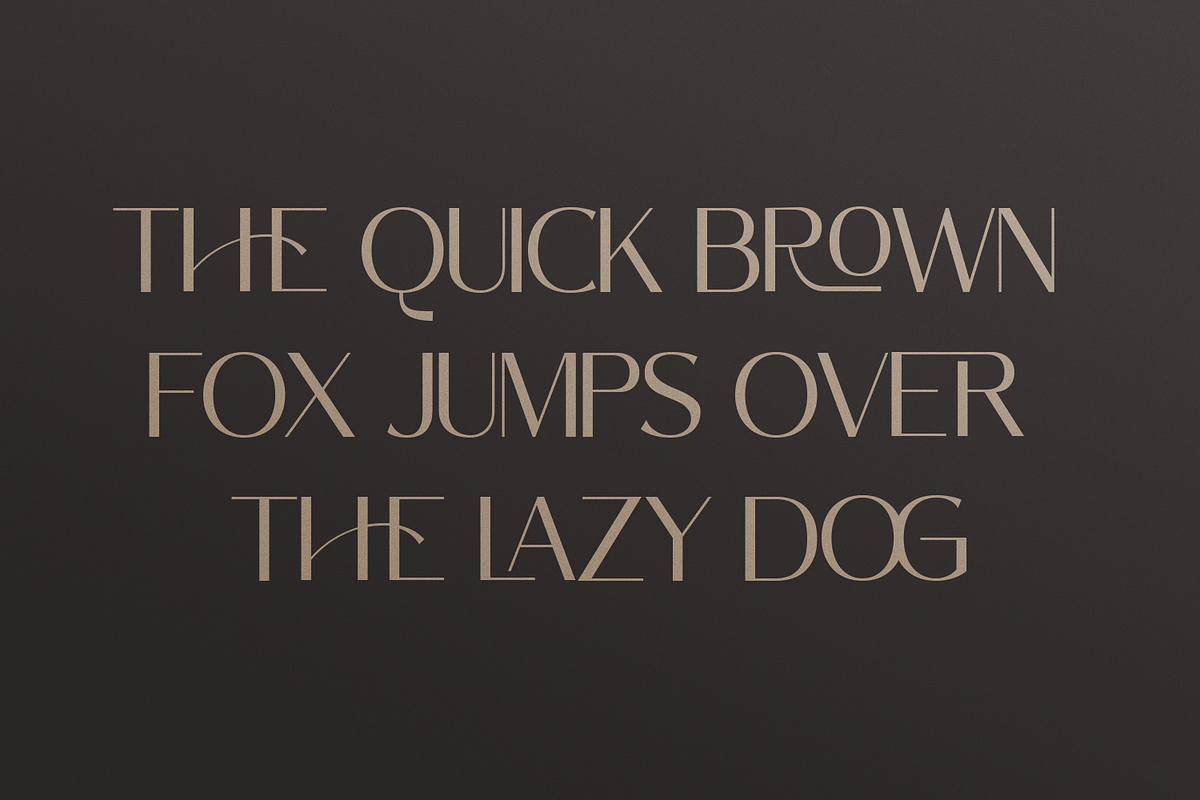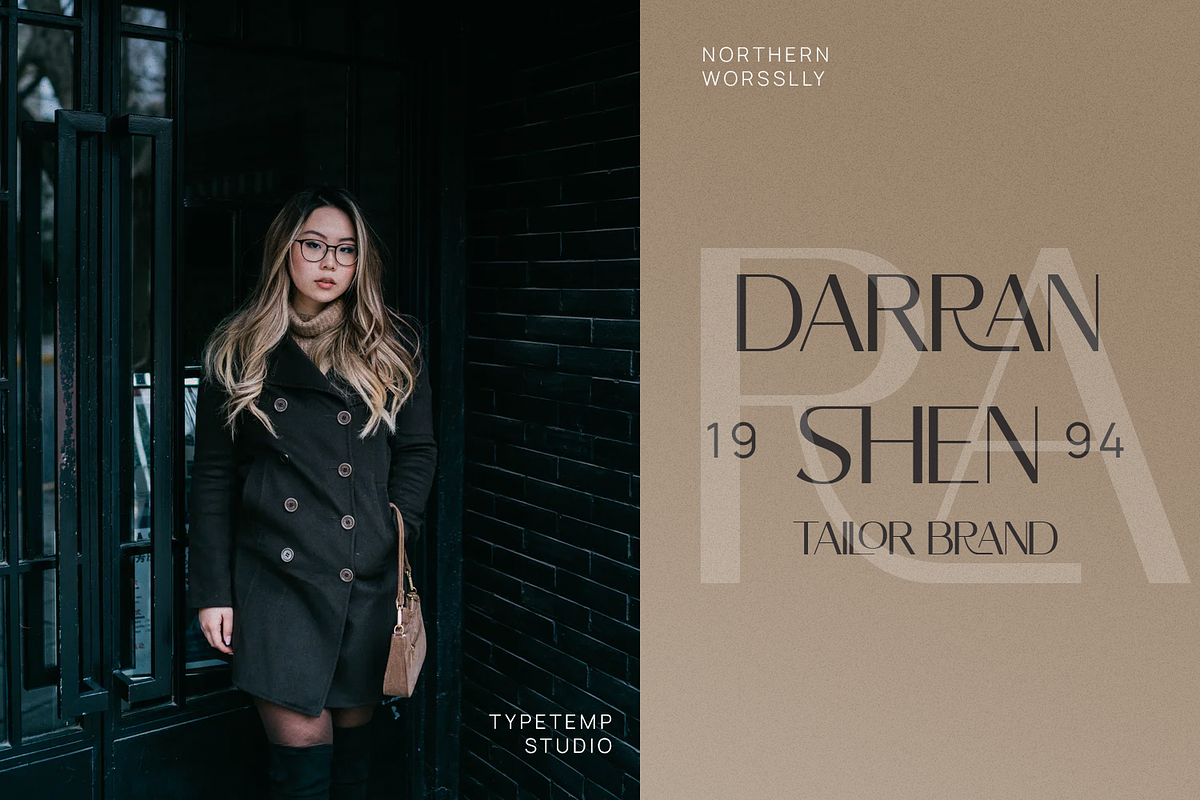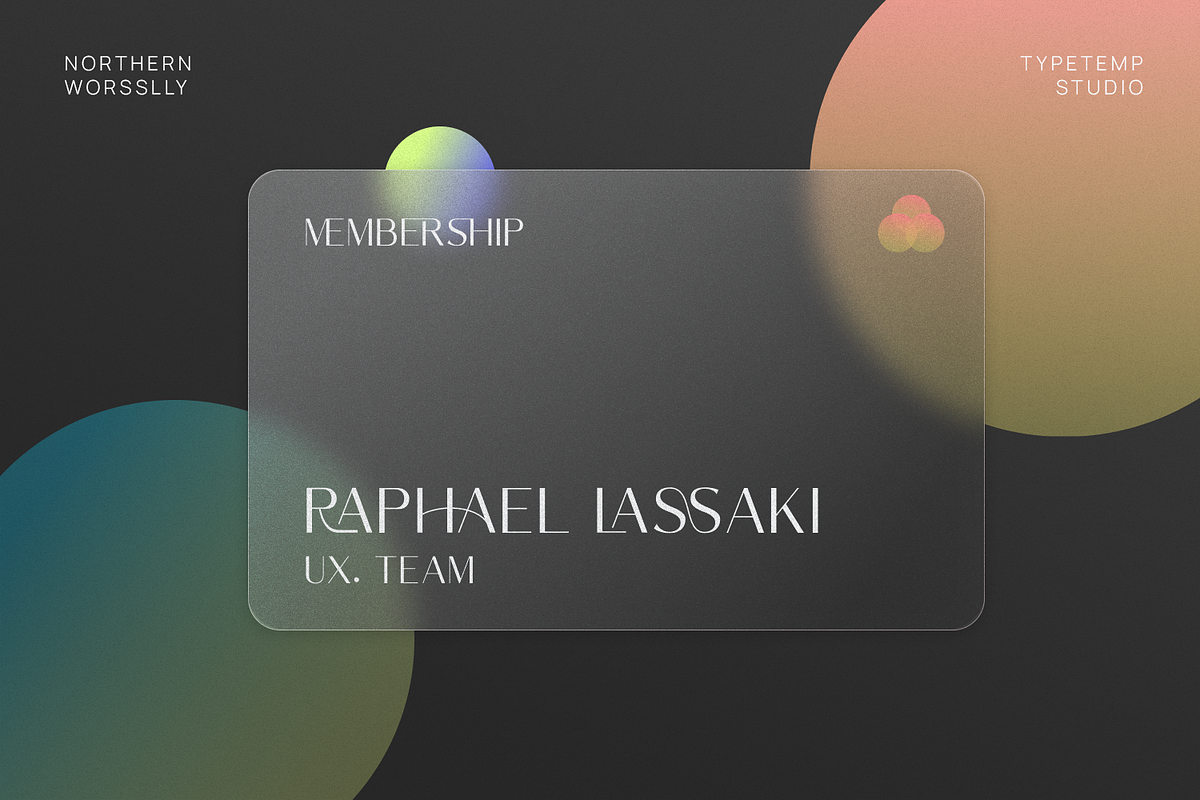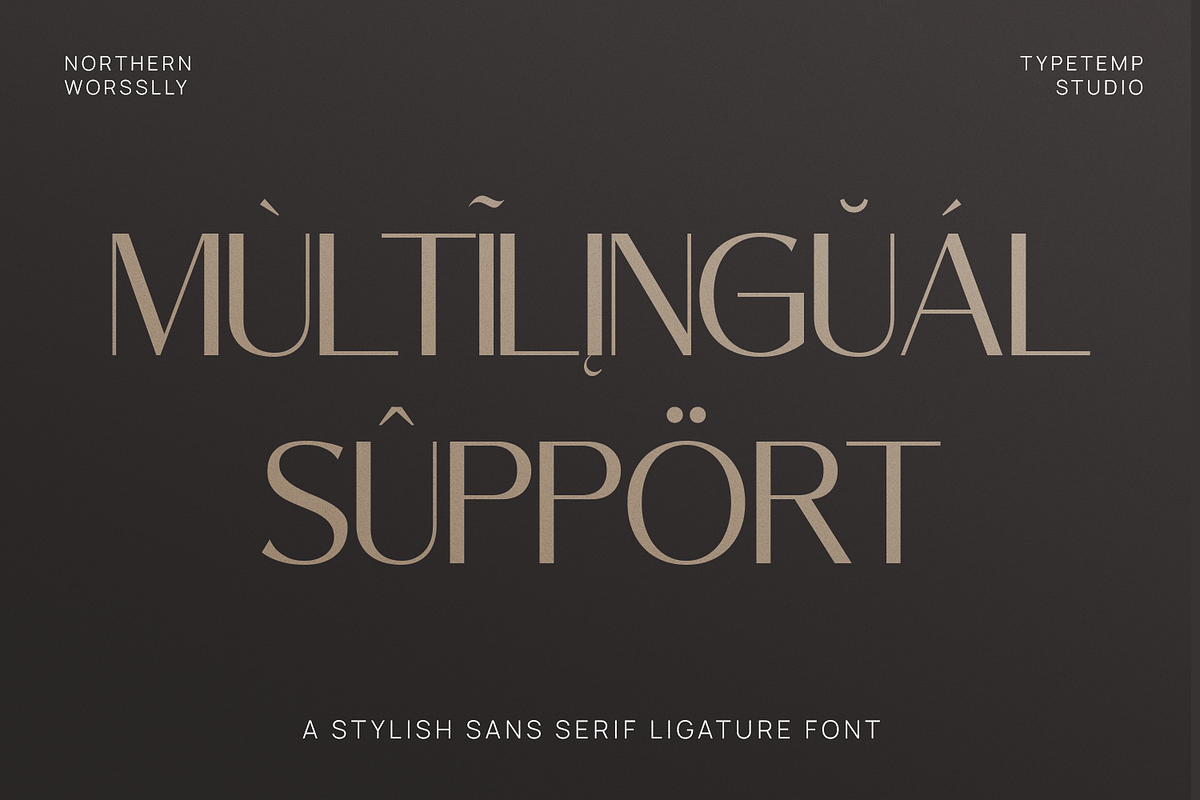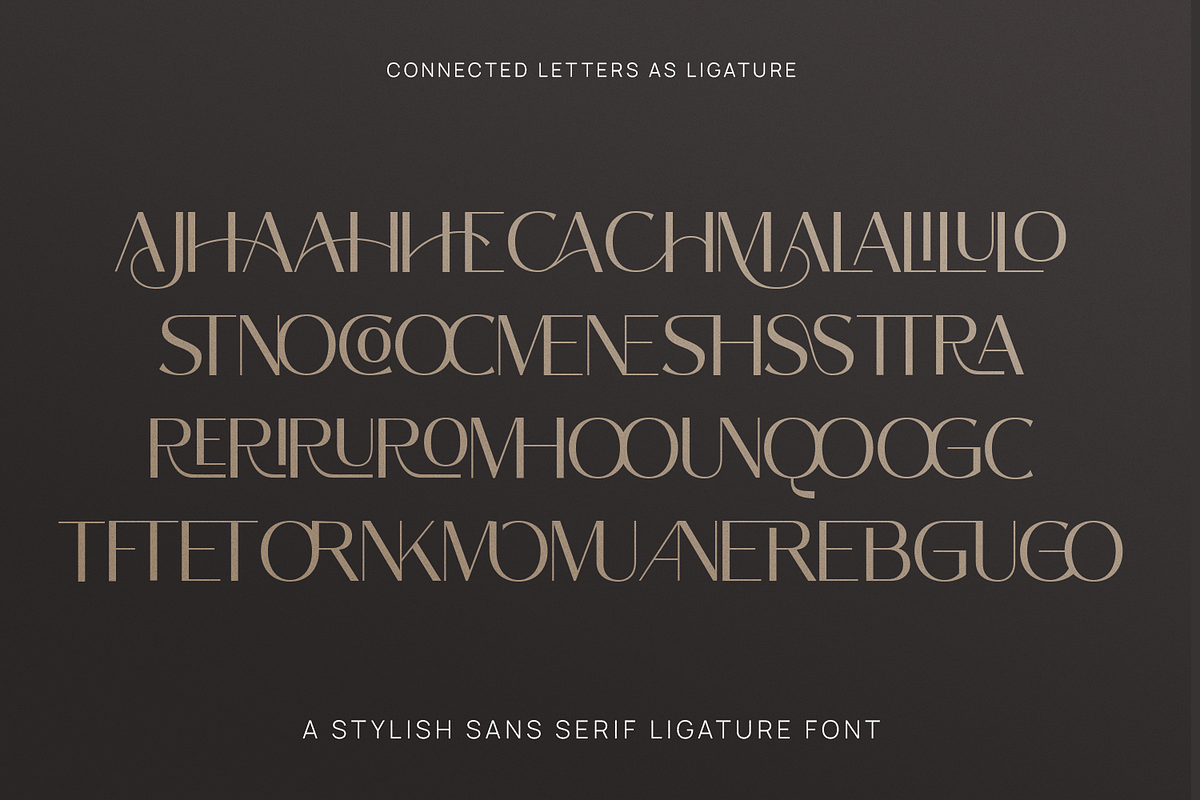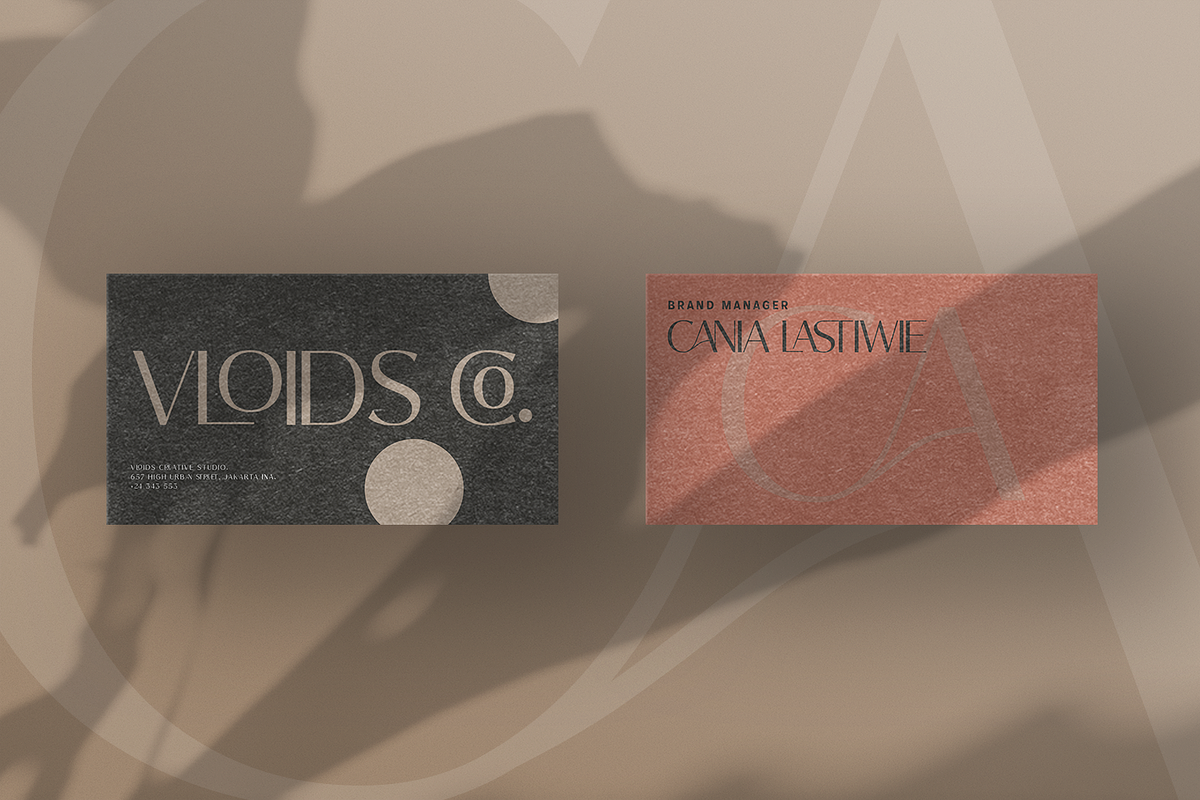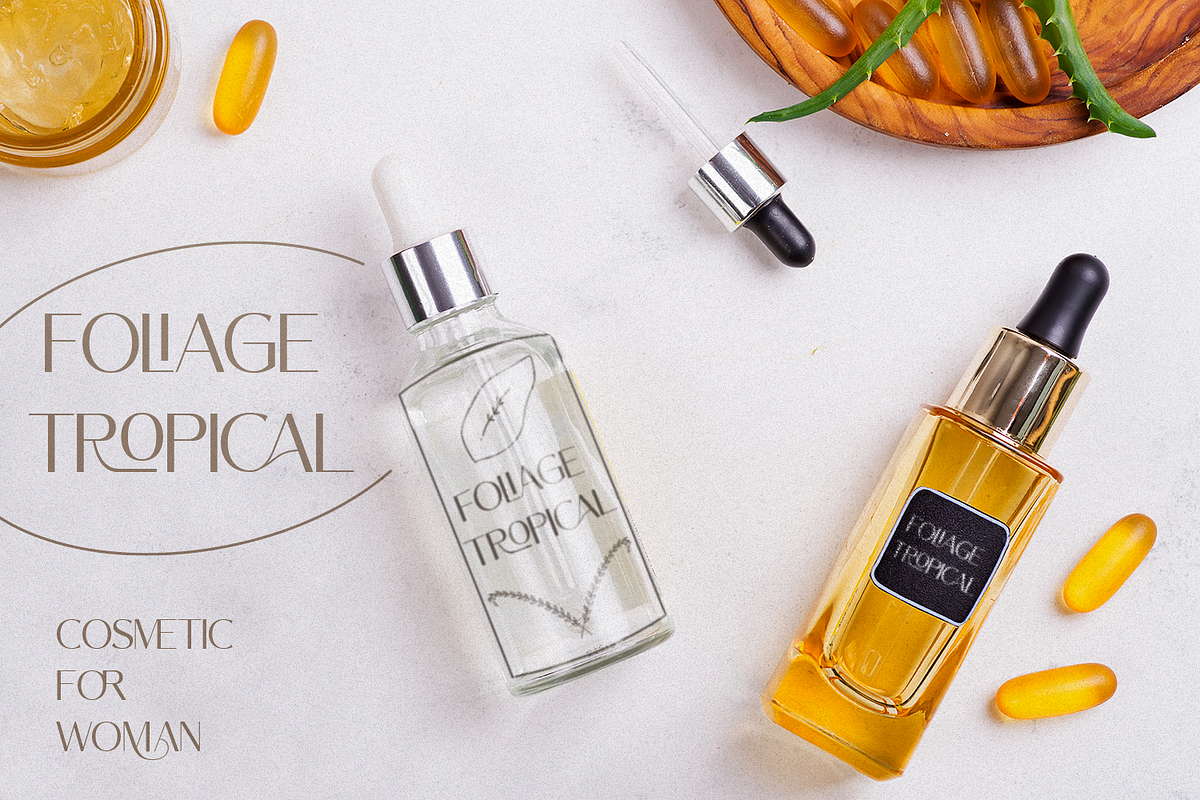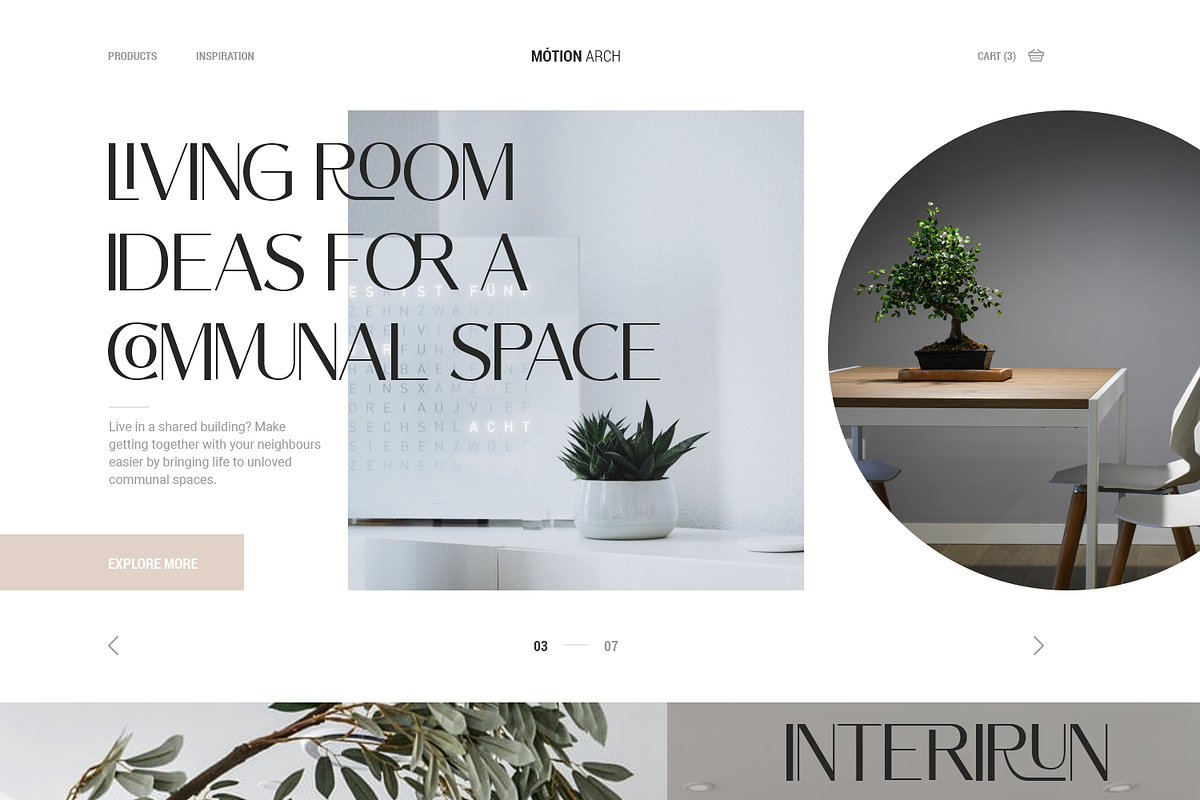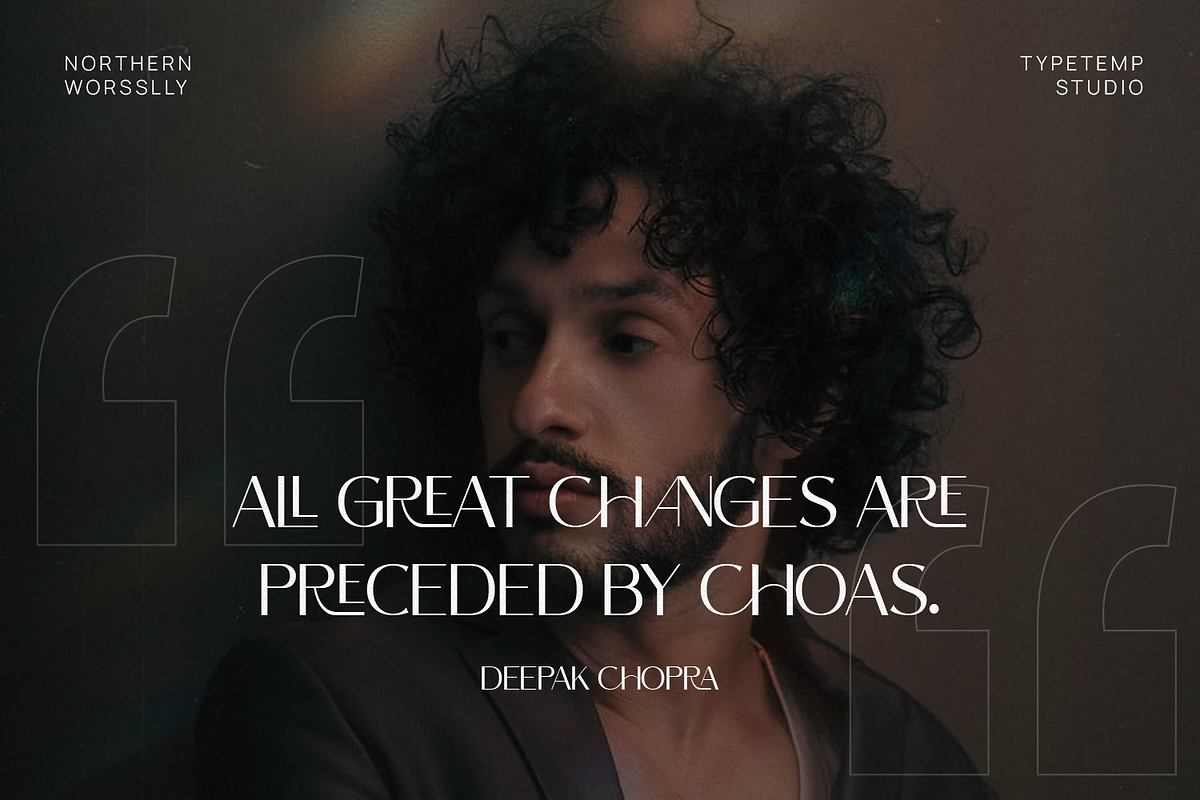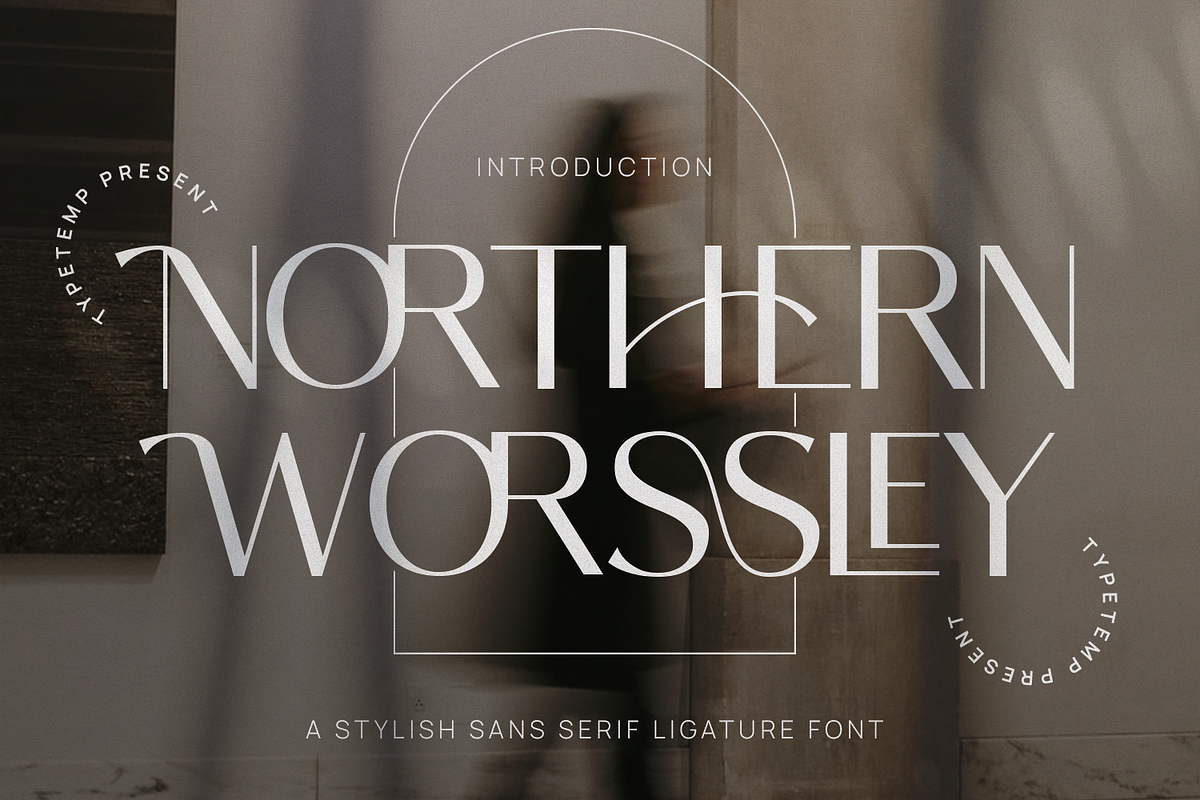
Northern Worssley - Ligature Sans
Northern Worssley is a made with a stylish elegant and modern touch, this font is ready to use with your brand and design, Access your OpenType features to access the large selection of alternate letters and ligatures, select the letters you like from the large variety to get the display font you like.
This font with alternatives, ligatures, and multilingual support. Perfect for editorial projects, Logo design, Clothing Branding, product packaging, magazine headers, or simply as a stylish text overlay to any background image.
- Stylistic Alternates & Ligatures
- Multilanguange